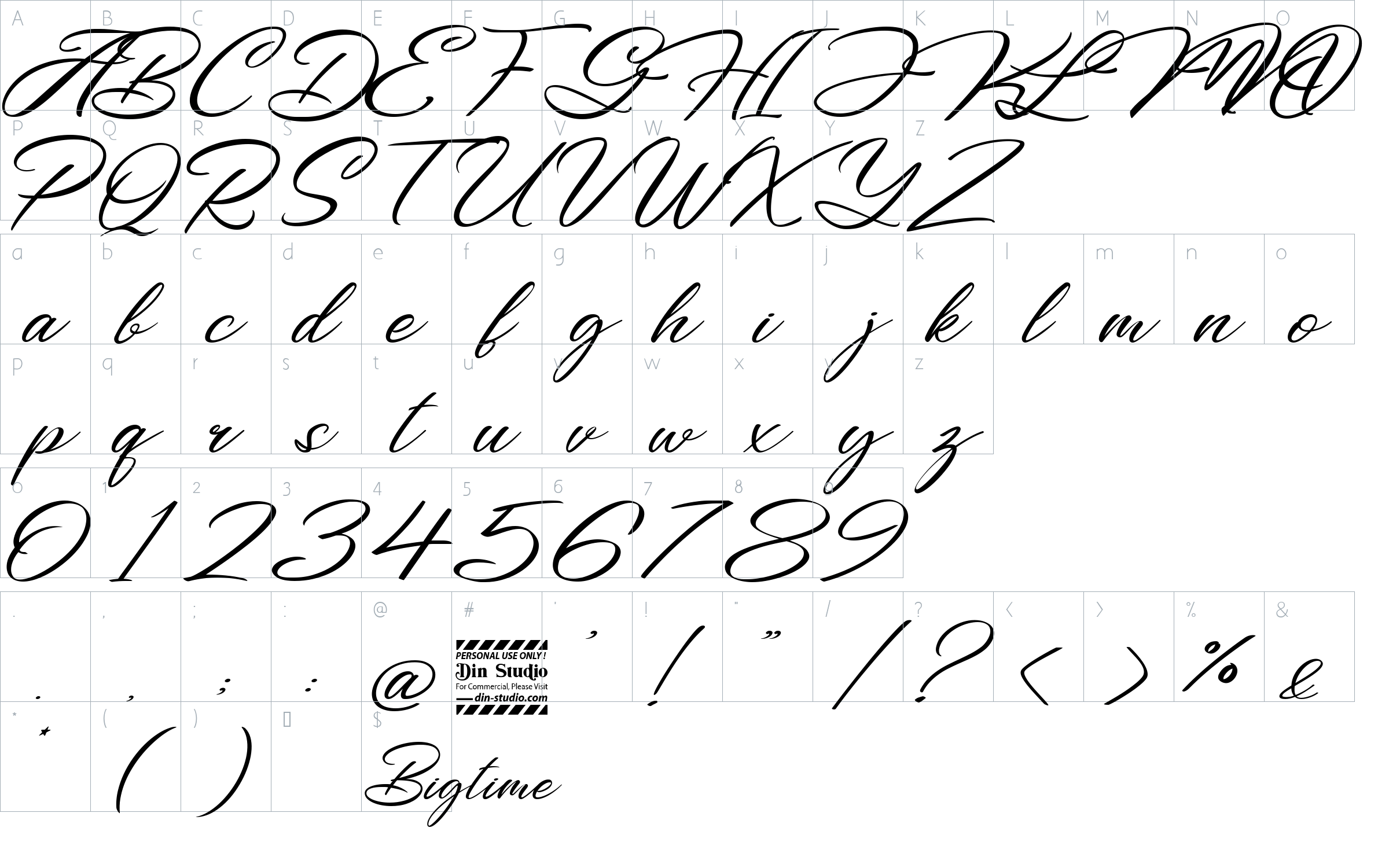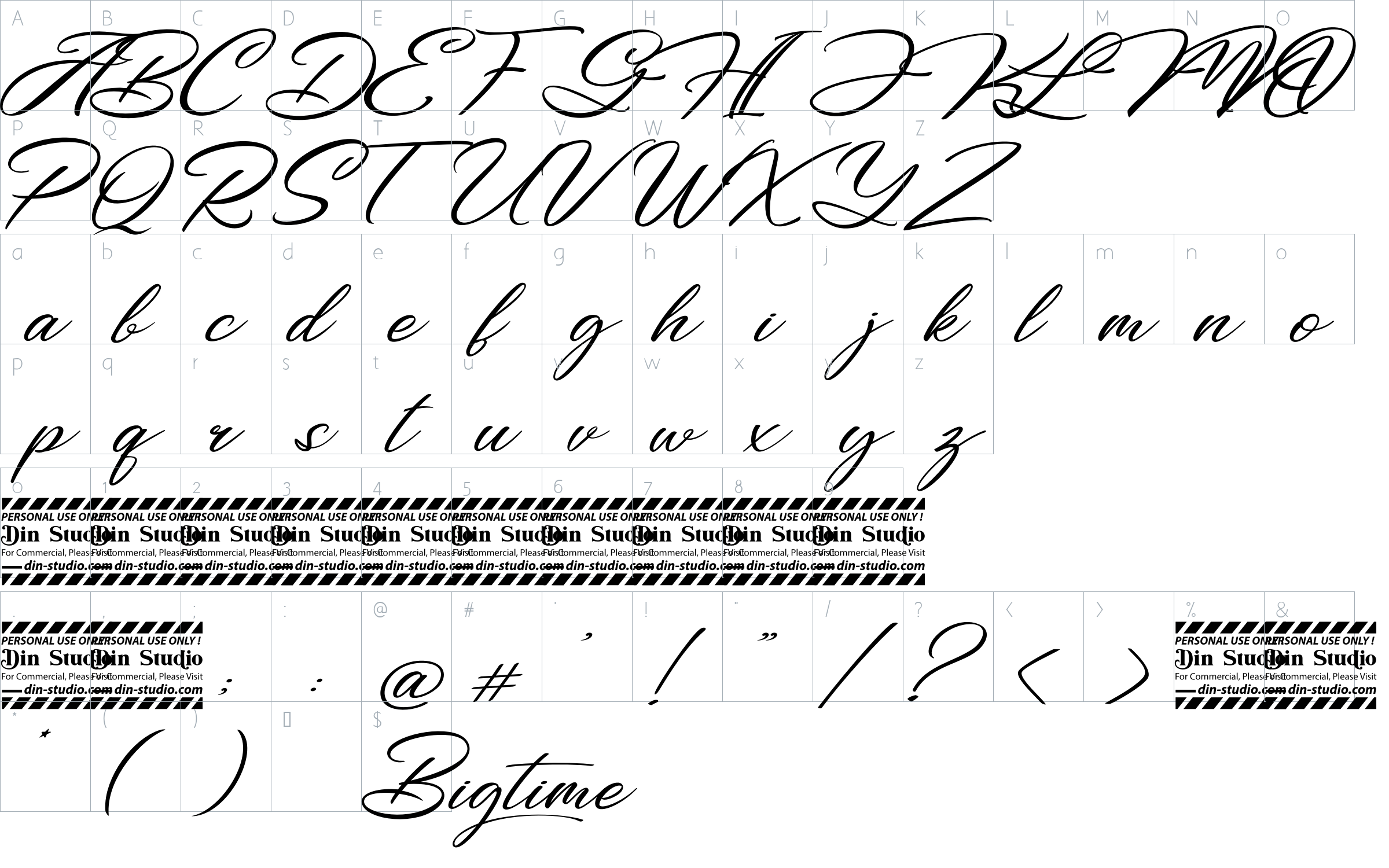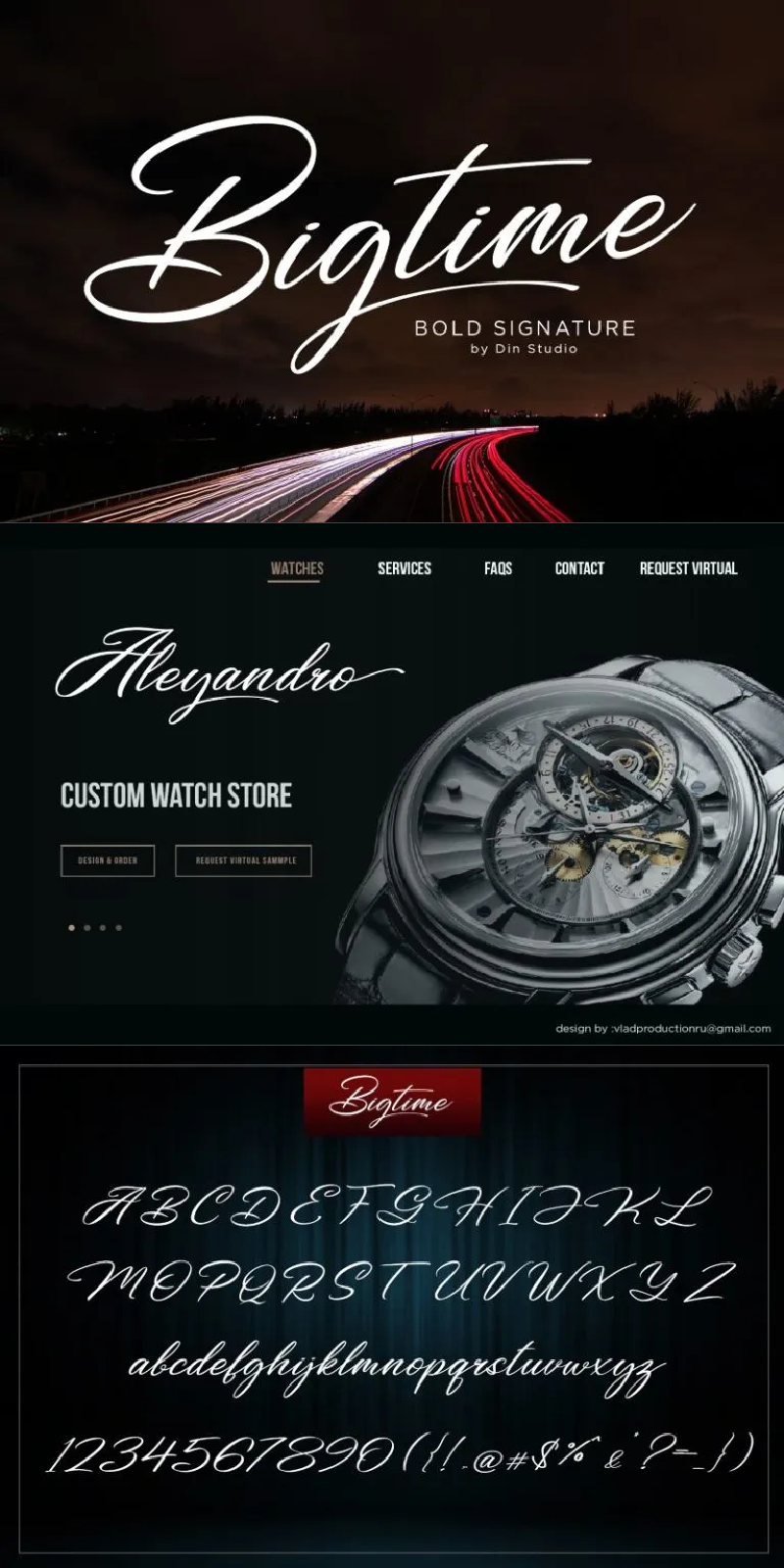
Bigtime Font
About Bigtime
It is presented with natural, modern and luxury styles. Bold identity will give your work more value, so you will surely need this font for your branding.
- Swash Glyphs (a-z)
- Alternate Glyphs (g, j, y, z, r, t,)